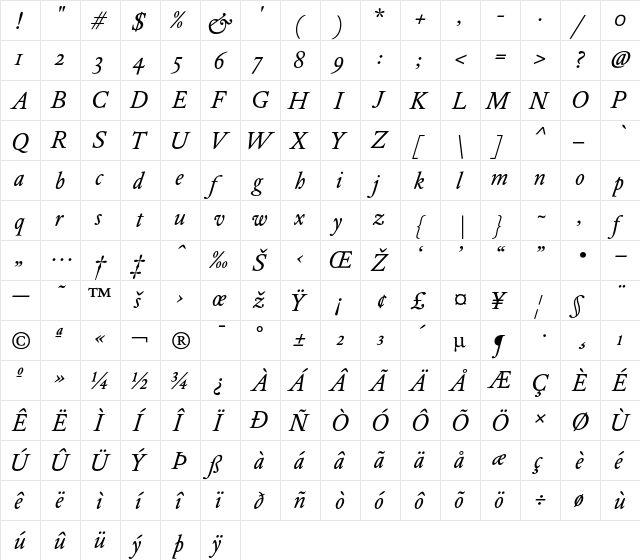
DTLElzevirSTBook Italic Font Preview
DTLElzevirSTBook Italic
Design Context for DTLElzevirSTBook Typeface
DTLElzevirSTBook is a composed and adaptable typeface that performs quietly and consistently across a wide range of design contexts. Its italic angle brings a sense of urgency and motion to the letterforms.
Pro Tip: Use DTLElzevirSTBook for emphasis, pull quotes, and subheadings where its slanted energy can add rhythm to the layout.